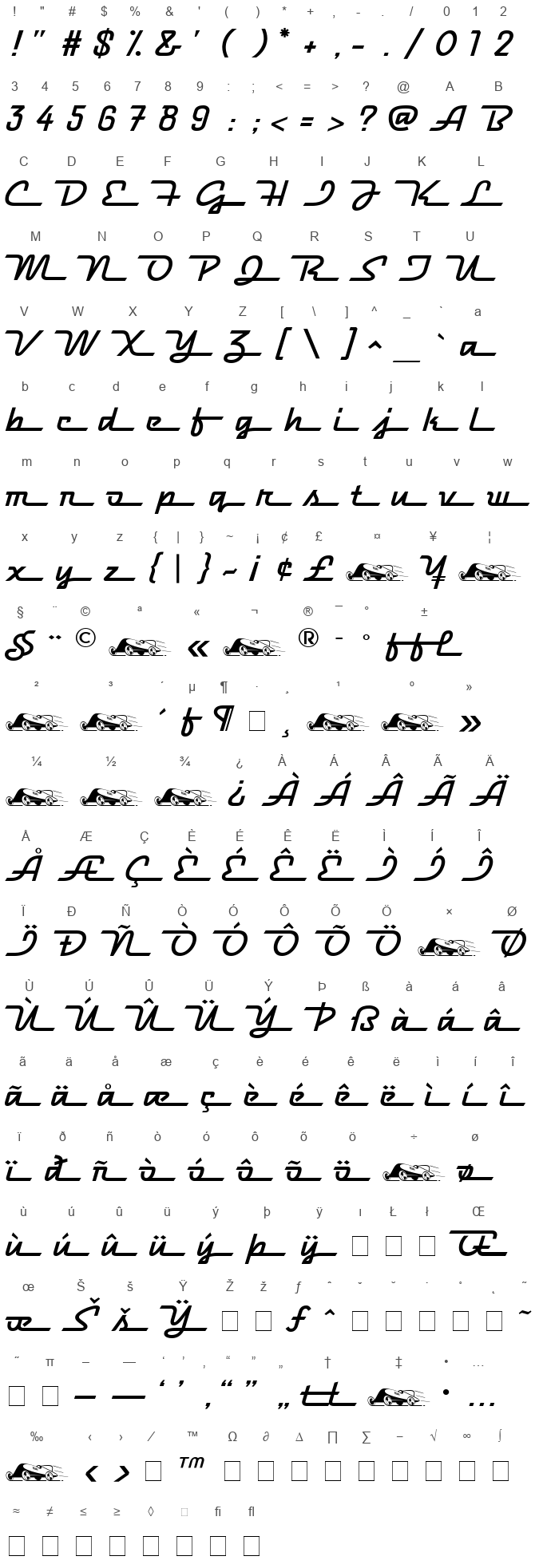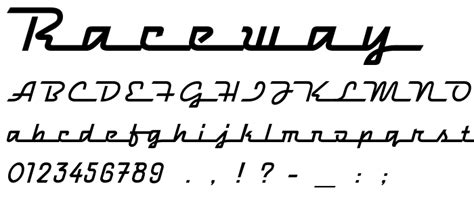
A great choice for highlighting your design elements. Web procircuit is a modern italic racing style font. Web looking for racing fonts?
Click to find the best 286 free fonts in the racing style. A script typeface with 1 style, available from adobe fonts for sync and web. Web explore raceway designed by zavier cabarga at adobe fonts. Web download free racing fonts.
Raceway Font Free - No hassle, no fuss, find thousands of high quality free fonts on fontsc. A great choice for highlighting your design elements. This font is free for personal use only. Web download free racing fonts. See how to download raceway for.
Raceway Font Free - This font is free for personal use only. Web raceway font free download. Every font is free to download! Web free racing fonts to make your racing designs stand out! Web procircuit is a modern italic racing style font.
Raceway Font Free - Click to find the best 286 free fonts in the racing style. Web download free racing fonts. Web explore raceway designed by zavier cabarga at adobe fonts. See how to download raceway for. No hassle, no fuss, find thousands of high quality free fonts on fontsc.
Raceway Font Free - A script typeface with 1 style, available from adobe fonts for sync and web. Every font is free to download! Web looking for racing fonts? A great choice for highlighting your design elements. Web free racing fonts to make your racing designs stand out!
Raceway Font Free - Web free racing fonts to make your racing designs stand out! Every font is free to download! This font is free for personal use only. See how to download raceway for. No hassle, no fuss, find thousands of high quality free fonts on fontsc.